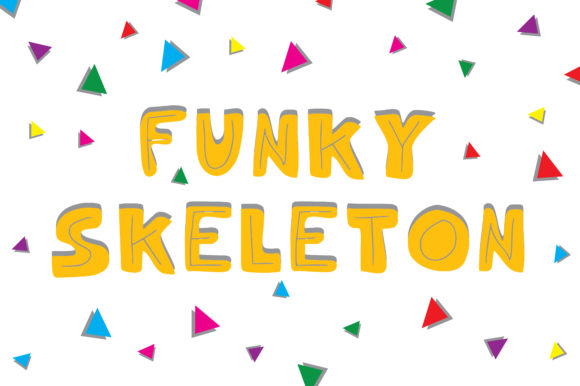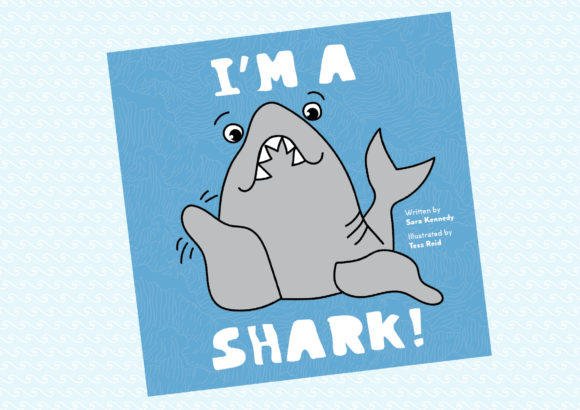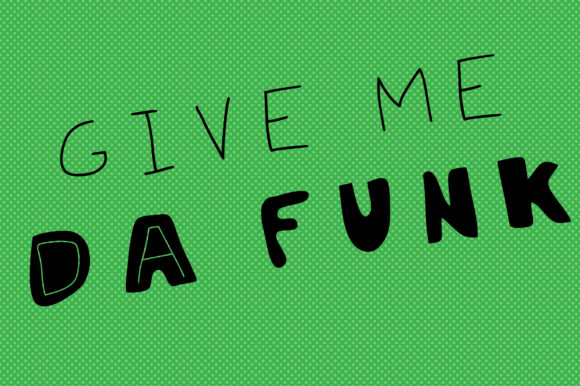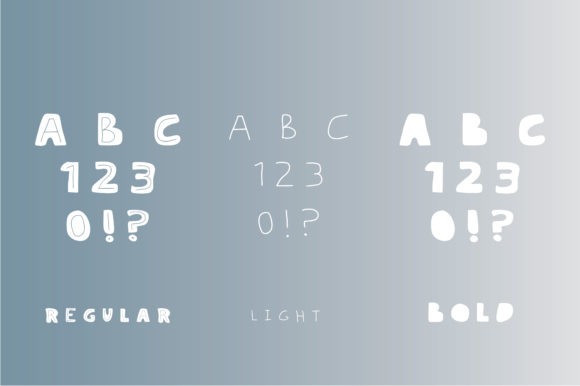
Funky Skeleton Font
About Funky Skeleton Font
The Funky Skeleton is a cool looking fat faced styled font. Combine thin and thick font styles to create a bold and brash display font with a rough handmade feel.